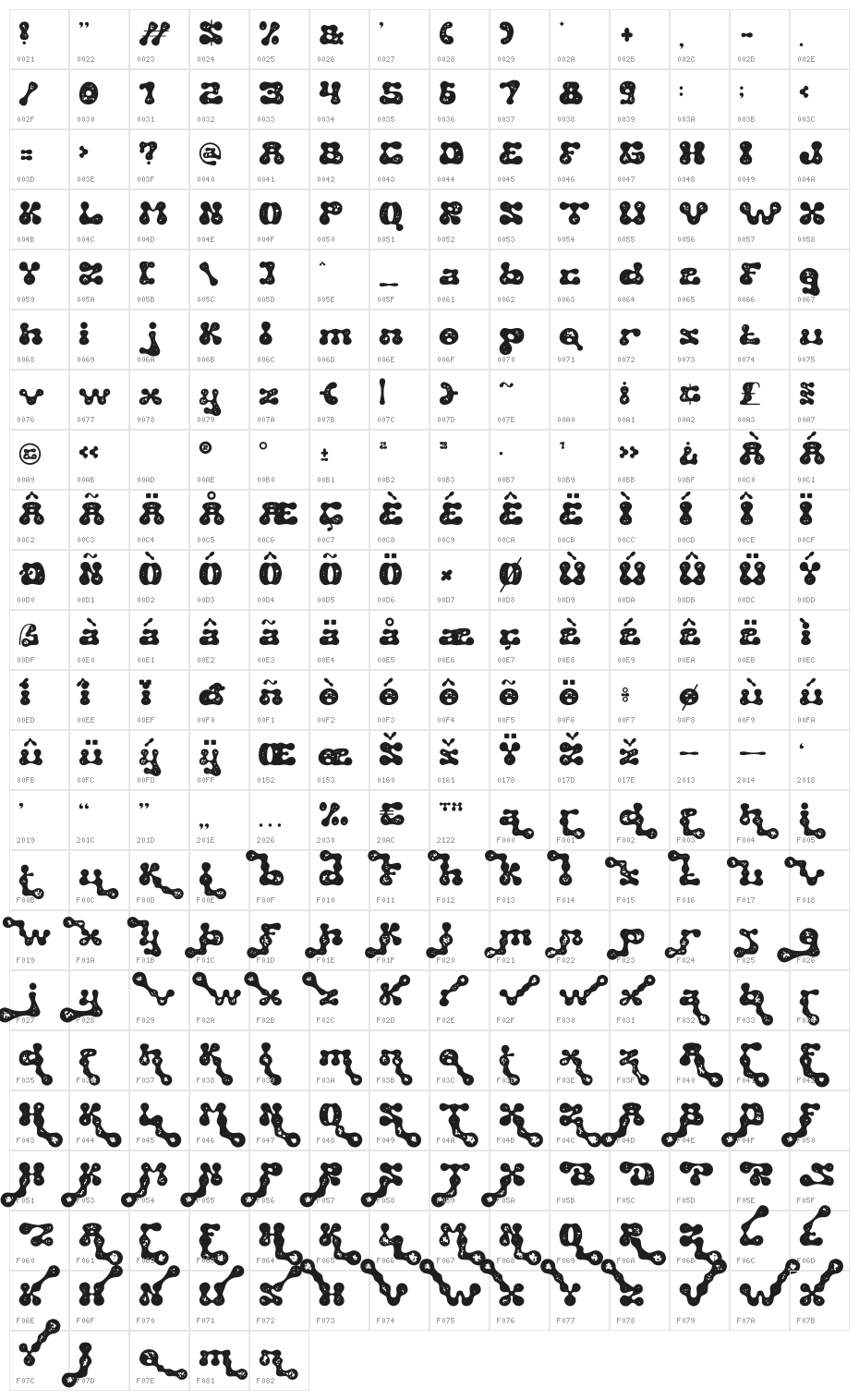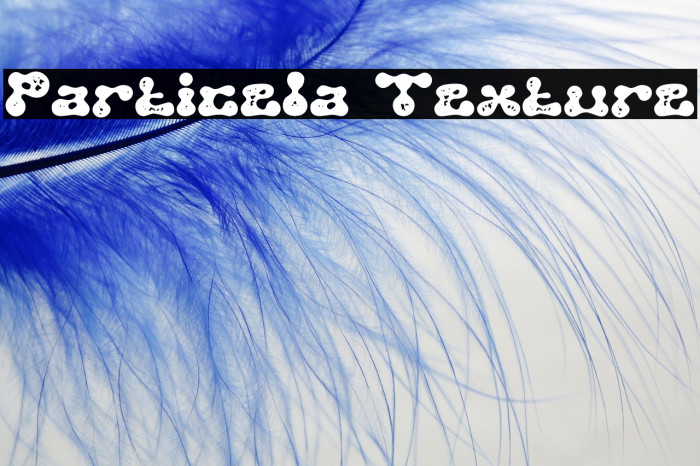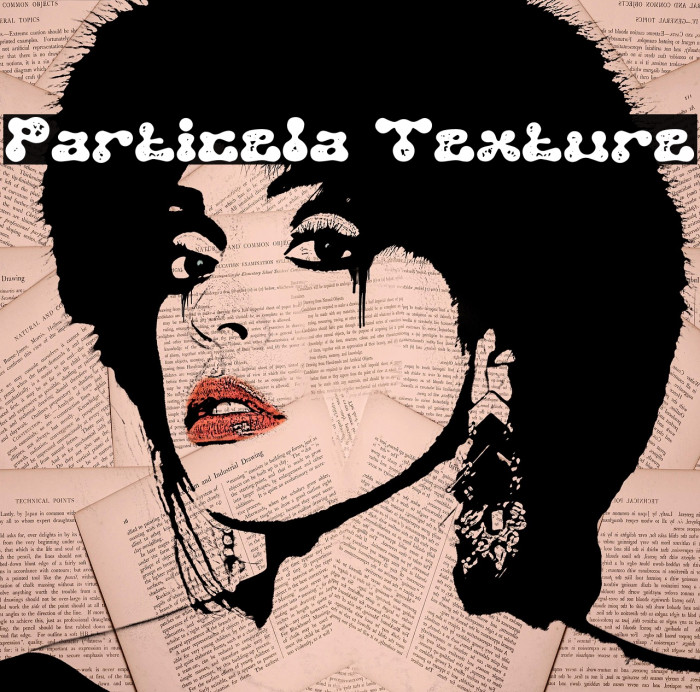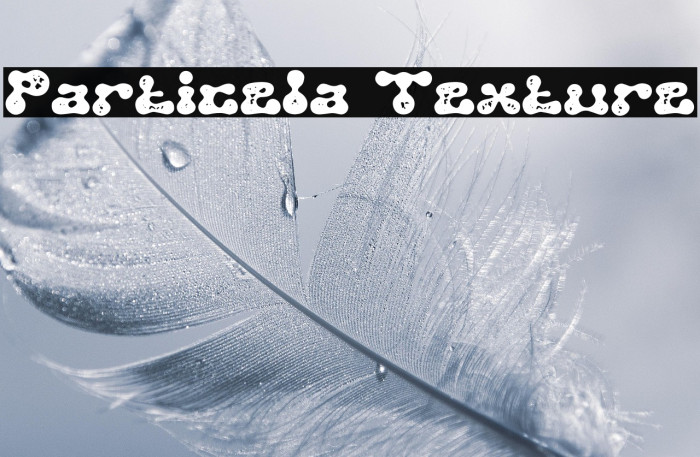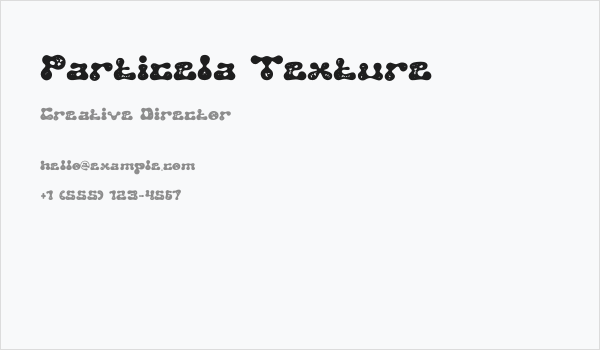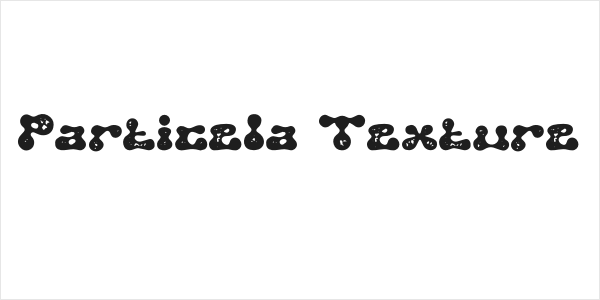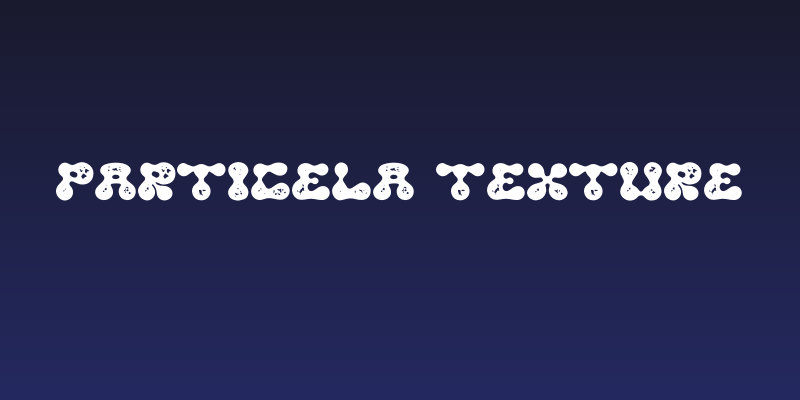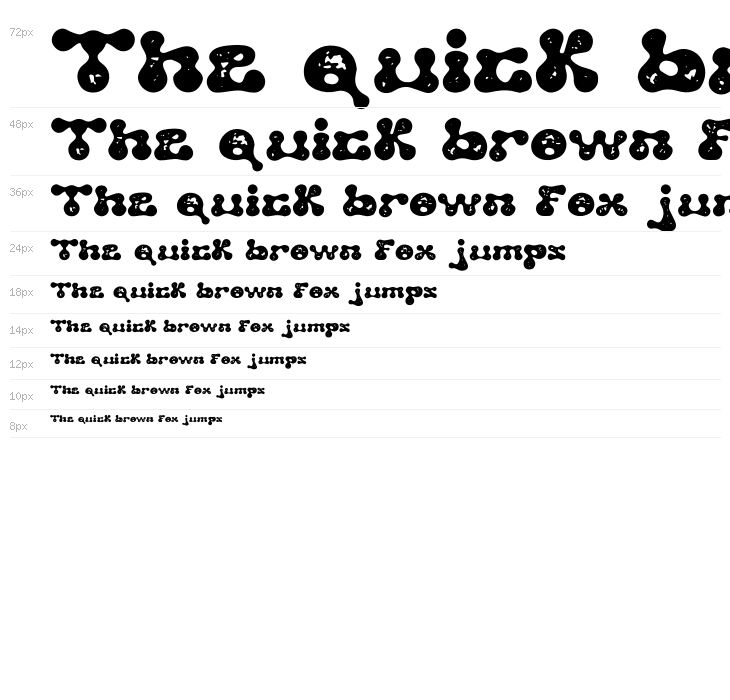
Particela Texture Font
Particela Texture Description
This font features a unique, textured design that resembles particles or bubbles within each character, creating a playful and dynamic appearance. The letters are bold and rounded, with an organic feel that suggests movement and fluidity. The texture within each character adds depth and interest, making it stand out in any design. The font maintains a consistent weight throughout, with a slightly irregular shape that enhances its whimsical charm. The overall style is decorative and eye-catching, perfect for projects that require a fun and engaging typeface.
| Proposed Projects | Ideal for children's books, playful branding, party invitations, or creative posters. |